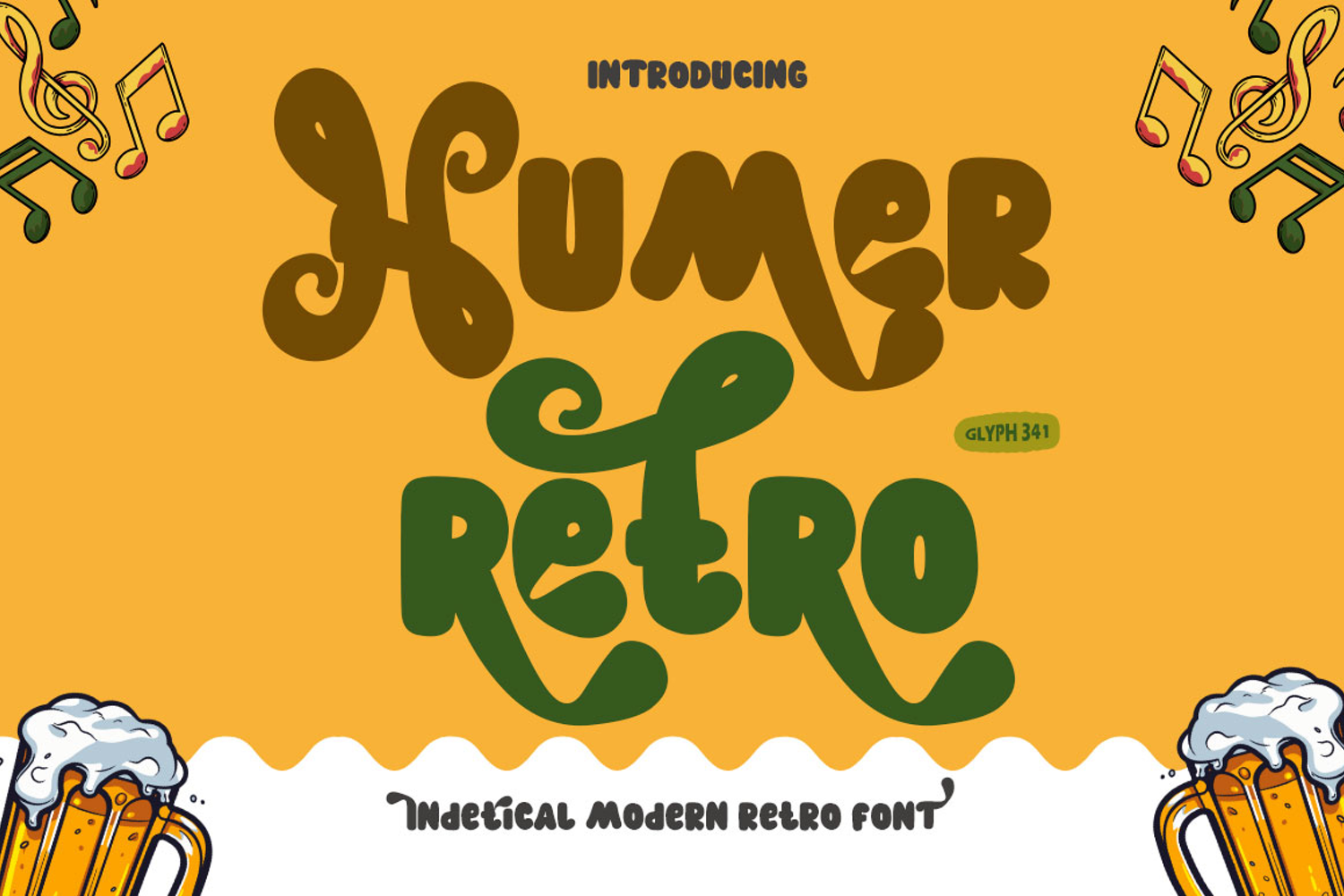
Humer Retro
INTRODUCING!
The new Humer Retro font is meticulously designed to create a pleasing combination of uppercase and lowercase letters. It also features unique and identical alternates and ligatures, keeping up with modern needs.